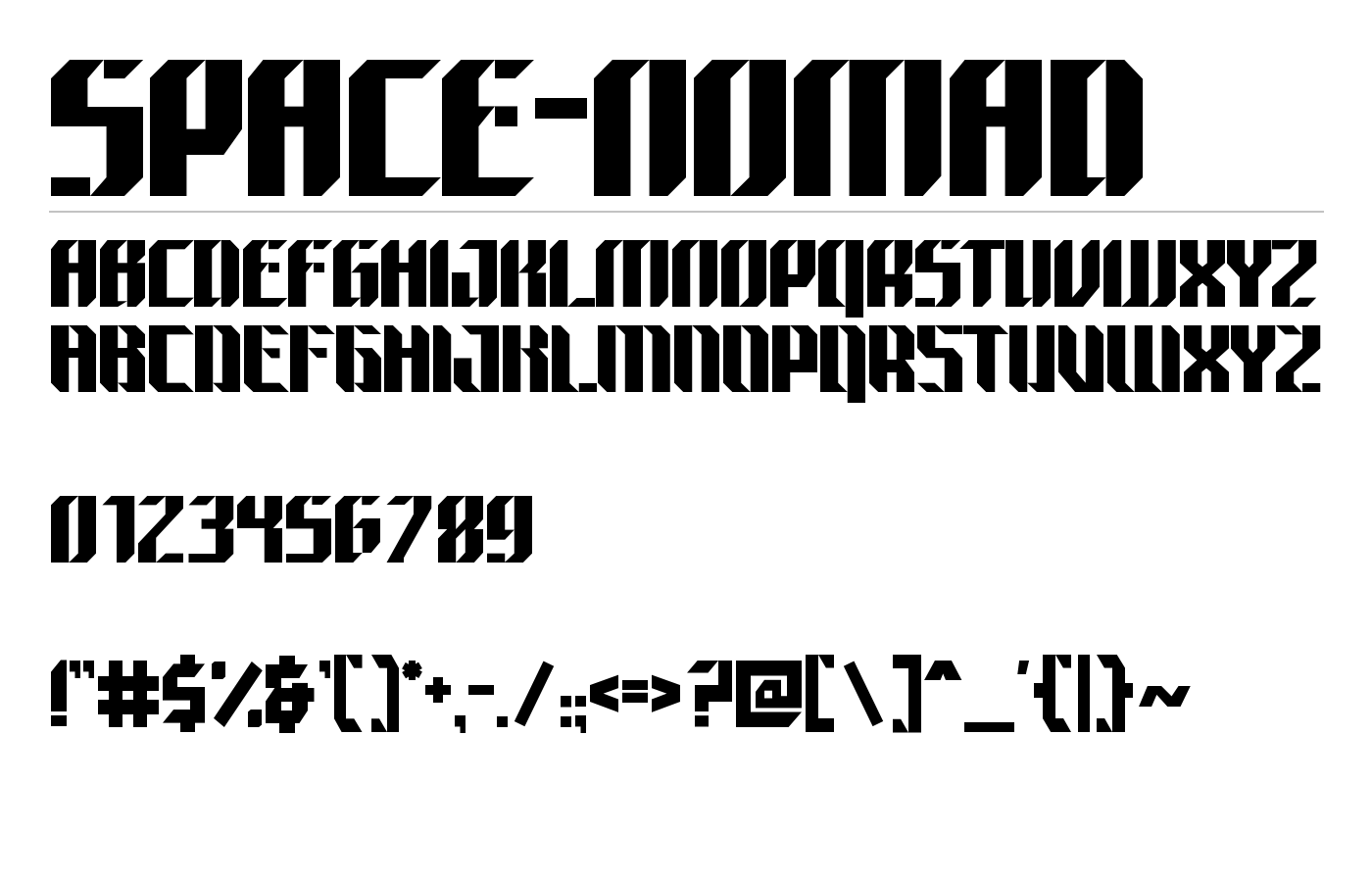
Space Nomad is a bold, condensed sans serif font characterized by its sharp, angular edges and futuristic, geometric style. Its blocky letterforms with strong vertical emphasis and distinctive cut corners evoke a modern, tech-inspired vibe, making it ideal for striking headlines, sci-fi branding, and edgy design projects seeking a space-age aesthetic. This font works best in display uses where a powerful and unconventional look is needed to capture attention.
Space Nomad Font
About Space Nomad Font
| Font family | Space Nomad Font |
| Designer | Tokopress Team |